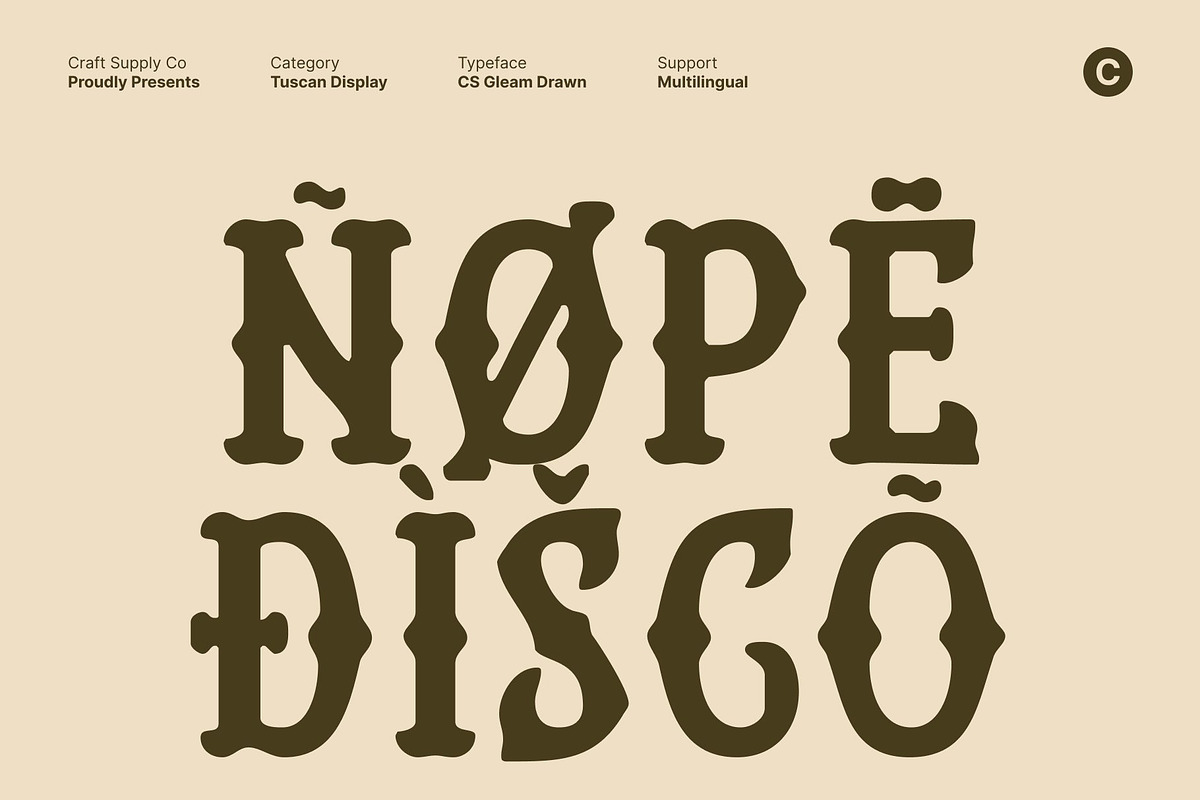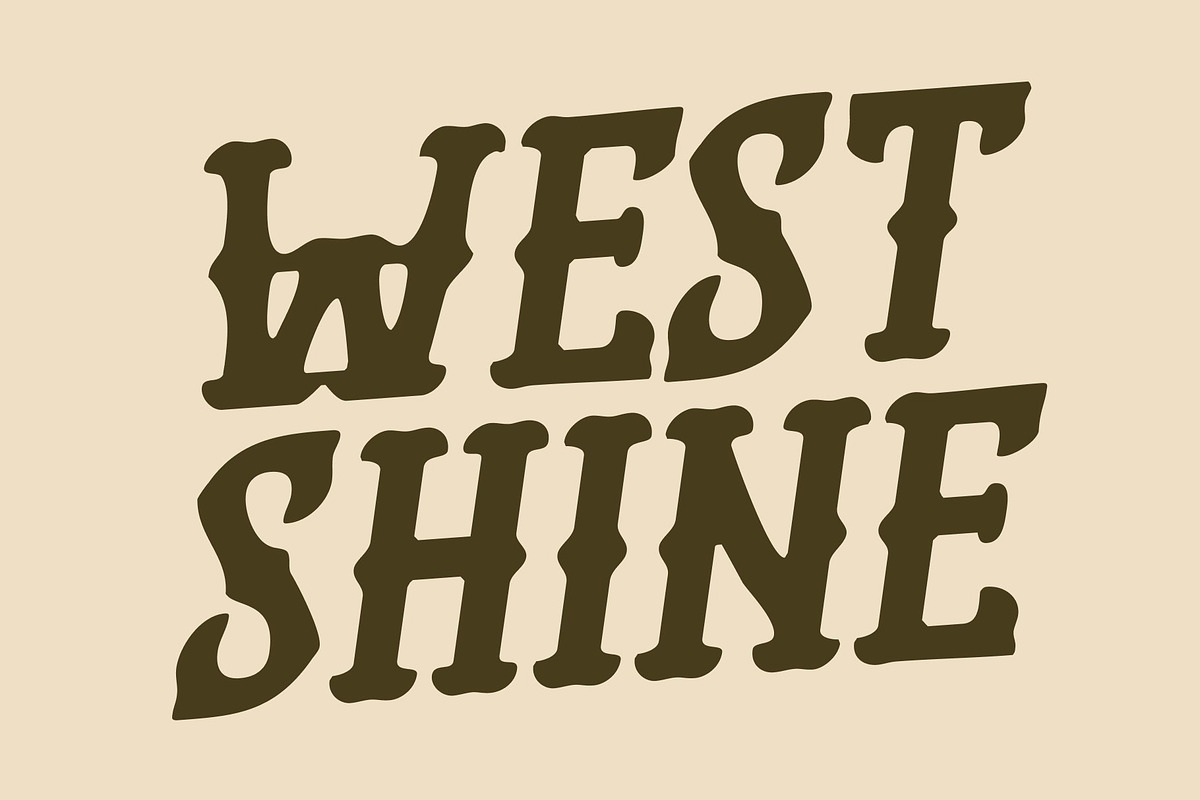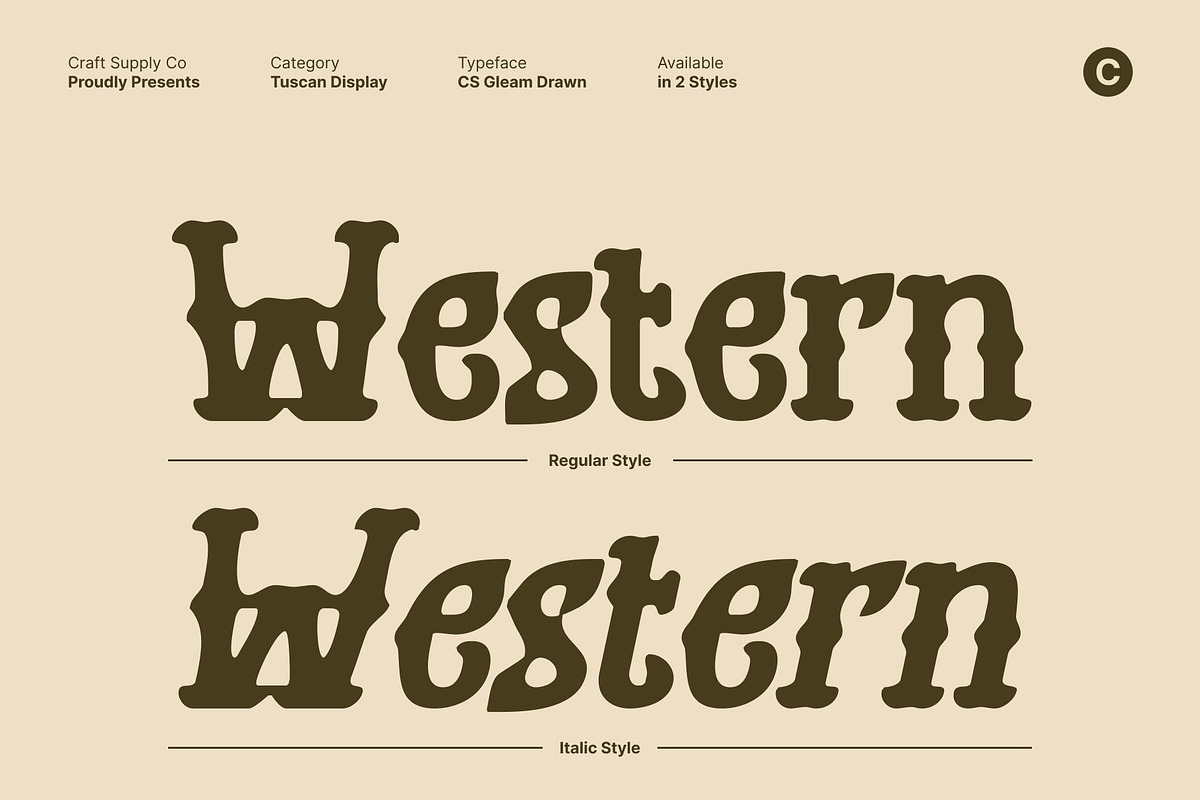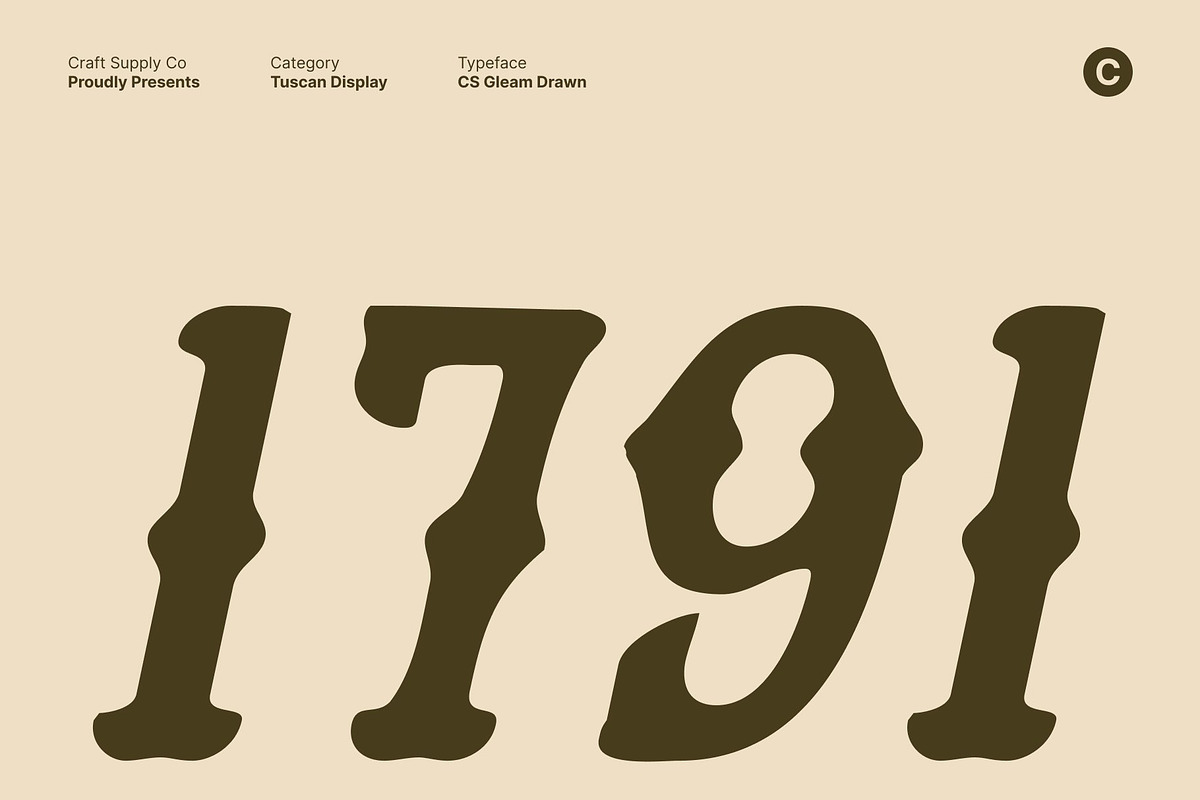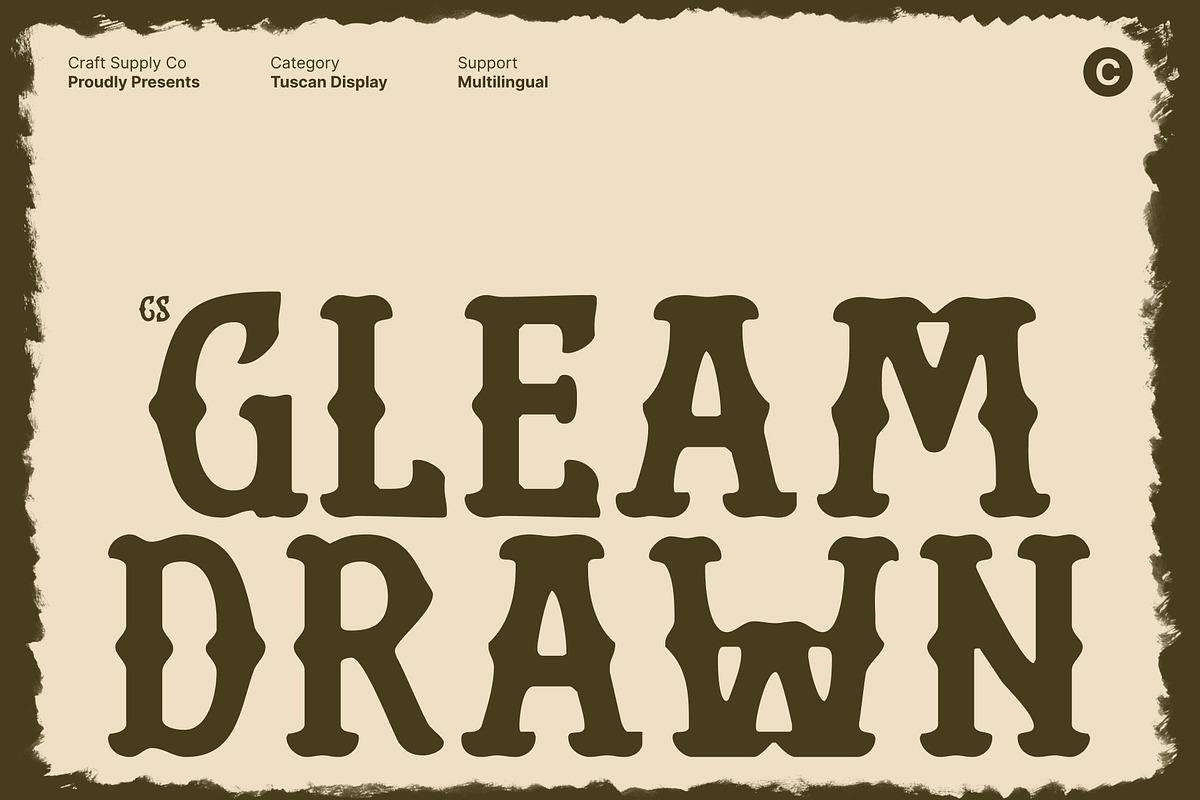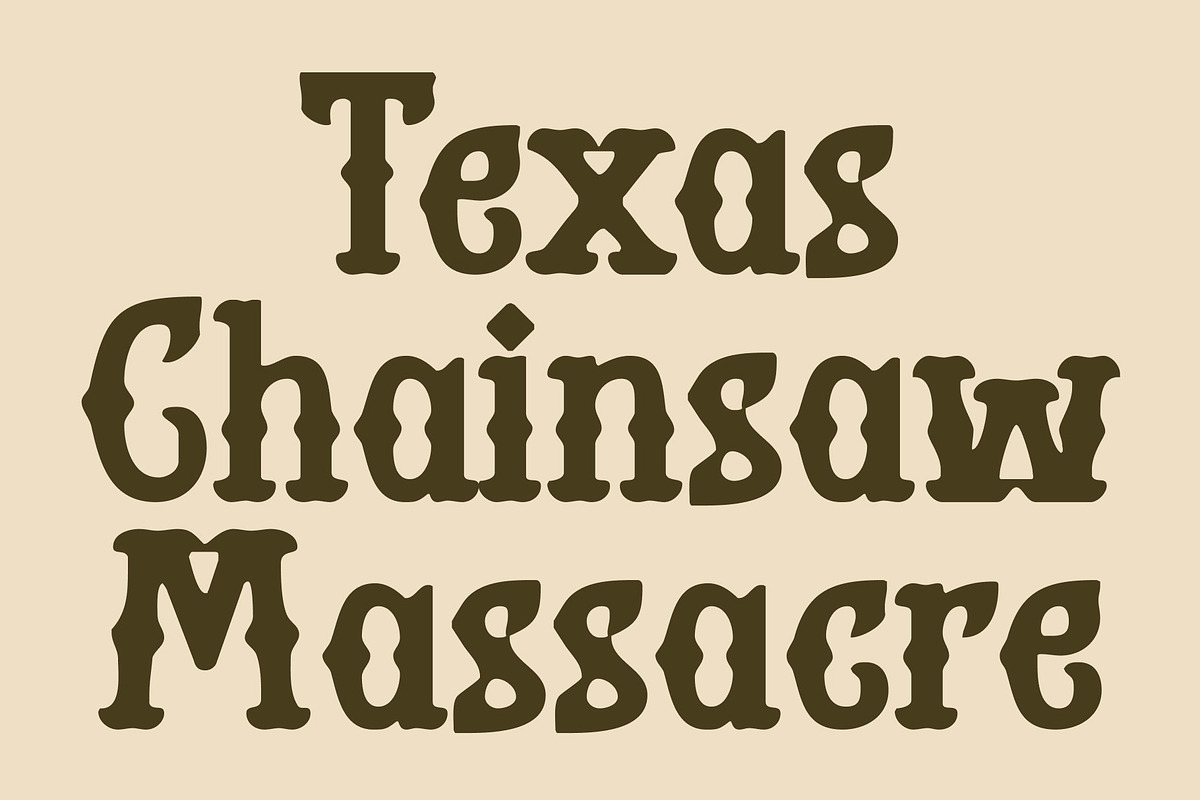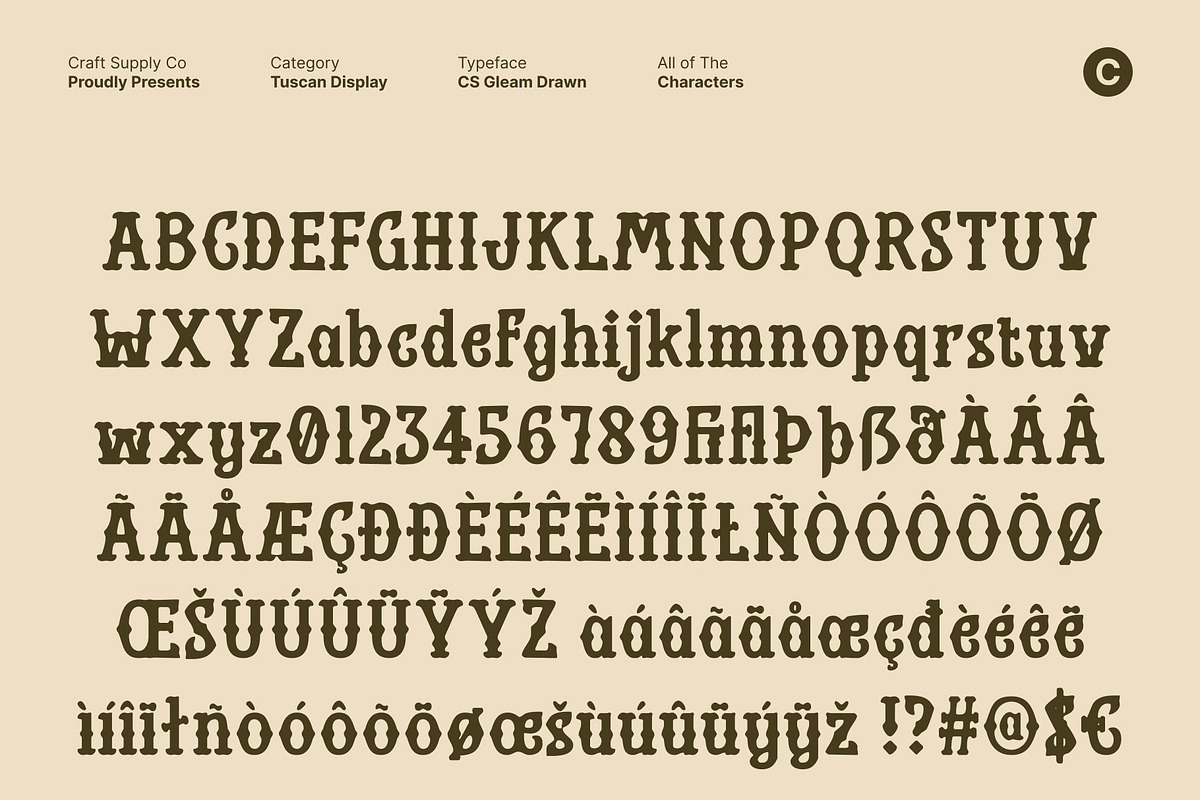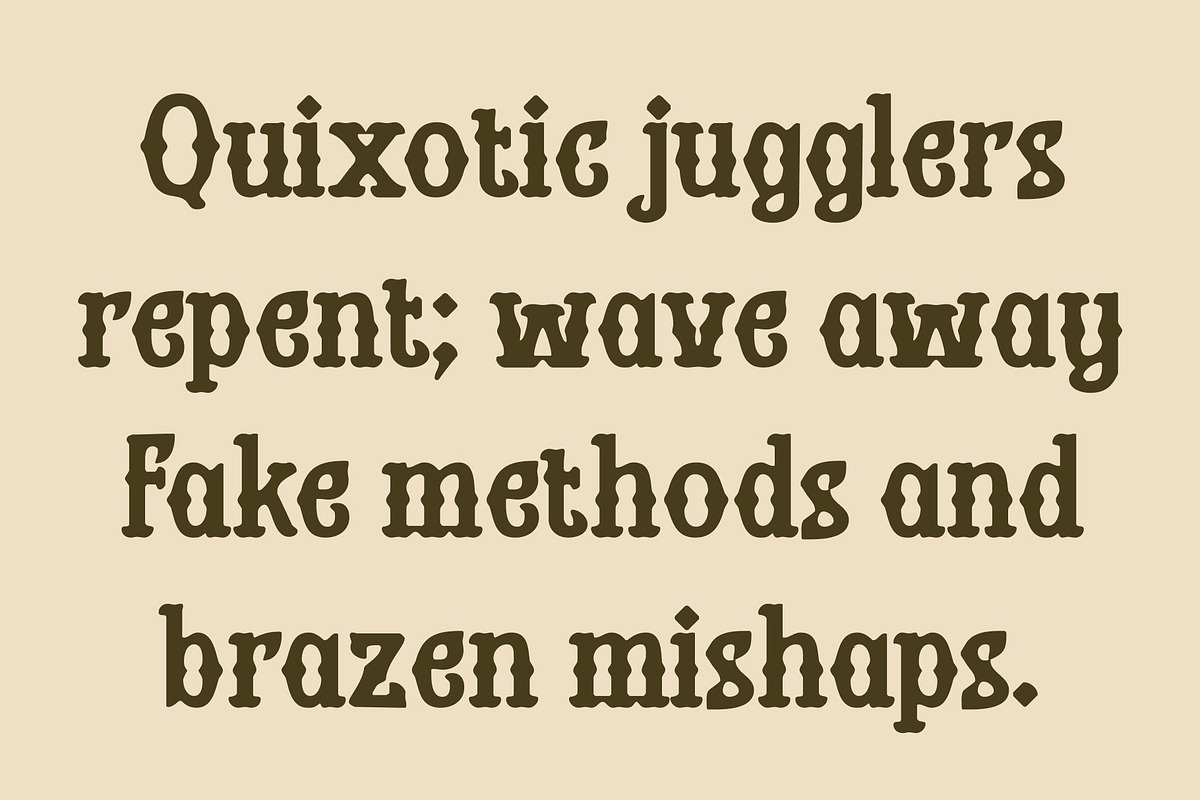
CS Gleam Drawn
CS Gleam Drawn – Western Tuscan Serif with Handmade Charm
Ornamental Tuscan Style with a Rustic Western Soul This is a western-style serif font that brings the bold energy of frontier typography into modern design. Inspired by classic saloon posters, rodeo signage, and vintage Americana, this font blends strong serif structures with iconic Tuscan ornamental curves. Its rugged yet elegant presence allows it to instantly command attention while retaining a sense of authenticity and nostalgic warmth.
Hand-Drawn Details for Authentic Character The drawn effect is at the heart of what makes this font truly unique. Each curve, serif, and decorative flourish carries subtle irregularities that echo hand-painted lettering from the old Western era. These imperfections add soul and depth, transforming simple text into expressive, organic visuals.
Bold Structure for Strong Vintage Presence Built with a confident and sturdy serif form, this font delivers strong readability and impactful display performance. Its Tuscan-style extensions add flair without sacrificing balance, creating a dynamic interplay between ornamentation and structural clarity.
Perfect for Branding, Packaging, Posters, and Themed Events This font shines in projects that require personality, storytelling, and vintage flair. It’s ideal for branding concepts rooted in rustic identity, heritage packaging, country-themed events, and Western-inspired posters. From food & beverage labels to festival signage or boutique merchandise, the font elevates visuals with its frontier spirit and handcrafted finish.